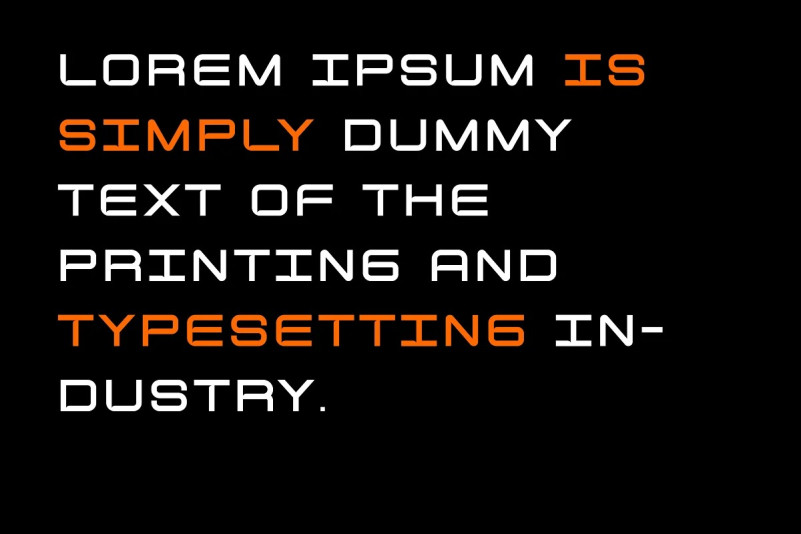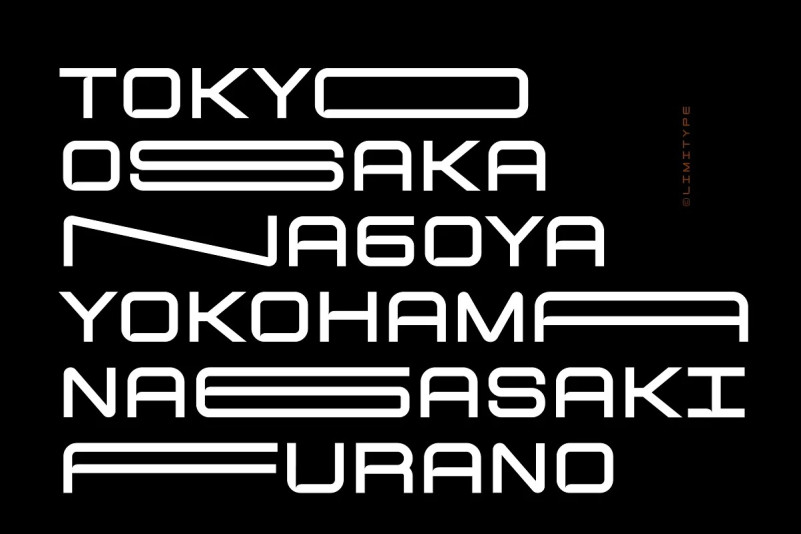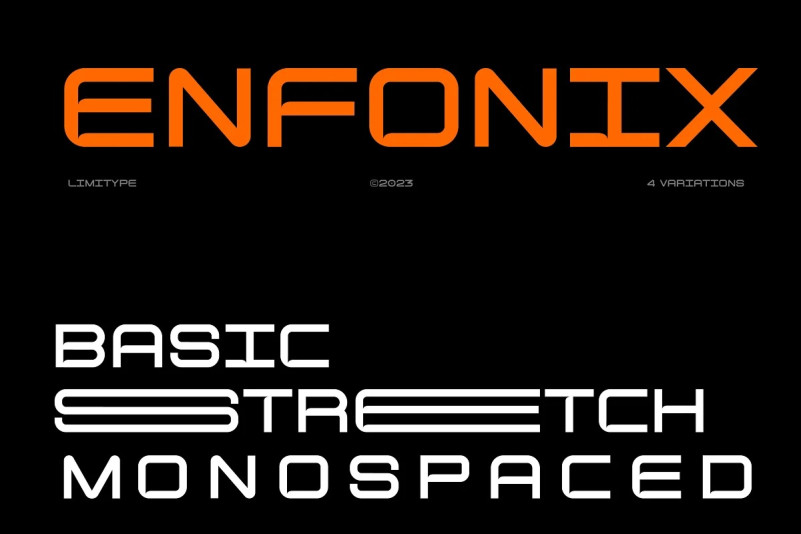
Enfonix Font
Enfonix Display Font is ​​a modern sans display font suitable for the needs of logos, magazines, posters, etc. with dynamic shapes, Enfonix is ​​equipped with 3 alternative width sizes and 2 typeface shapes (Std and Pro). Enfonix is ​​also available in a monospaced style